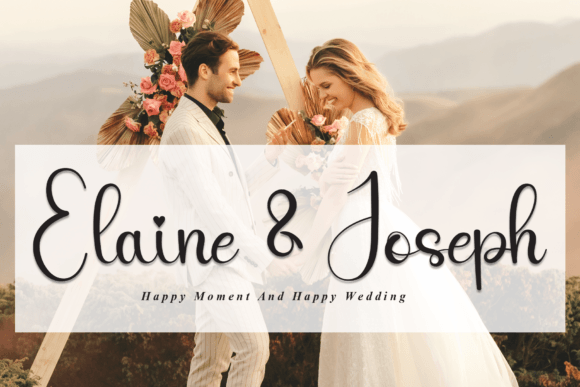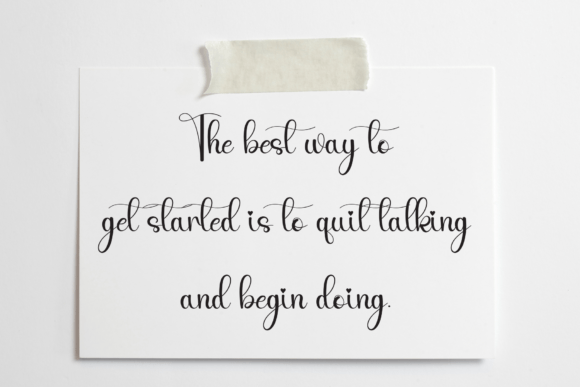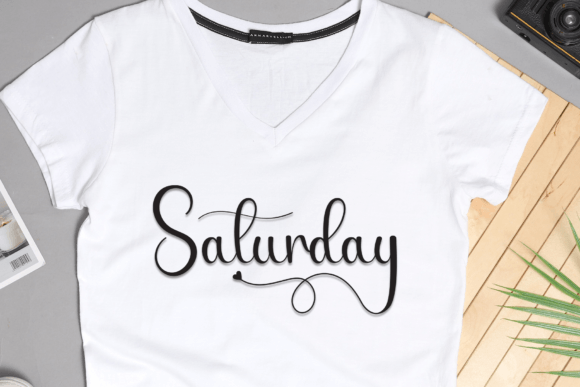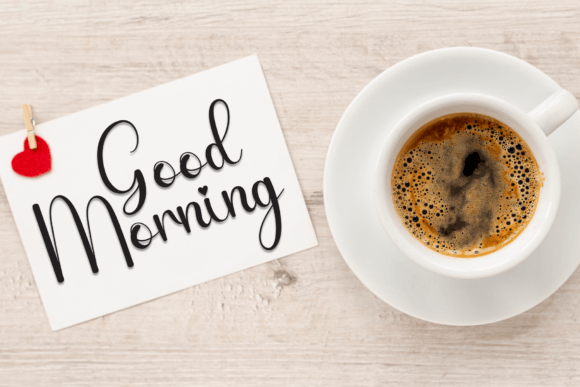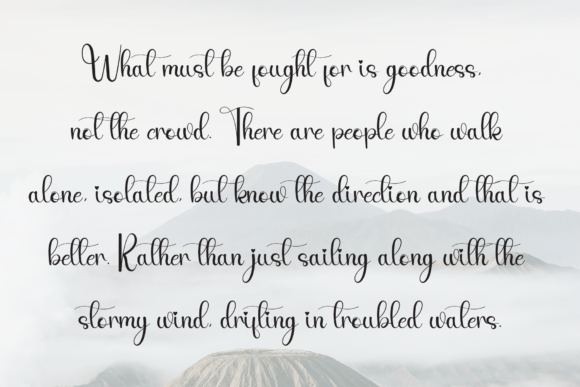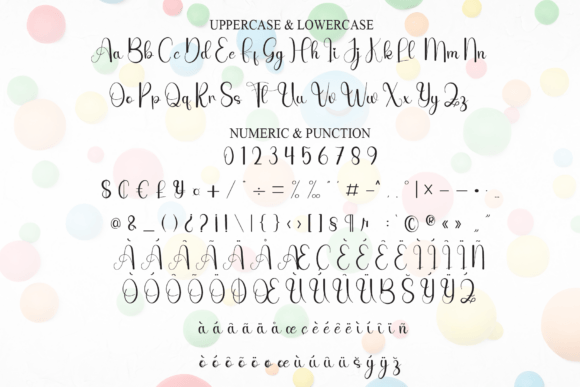
Bubblegum Font: Elevate Your Designs with Elegance and Charm
In the world of typography, fonts play a crucial role in conveying the tone and personality of a design. Among the numerous font styles available, script fonts have gained immense popularity for their elegance and sophistication. One such font that has captured the hearts of designers and crafters alike is the Bubblegum Font. This stylish handwritten script font is renowned for its flowing, graceful curves that exude elegance and charm, making it perfect for a variety of design applications.
What is Bubblegum Font?
Bubblegum Font is a beautiful, handwritten script font that boasts a unique and captivating style. Its delicate strokes and flowing curves bring a sense of warmth and creativity to any design, making it an excellent choice for designers and crafters looking to add a personal touch to their projects. The font’s elegant and sophisticated appearance makes it suitable for a wide range of applications, including invitations, logos, branding, and more.
Key Features of Bubblegum Font
The Bubblegum Font has several key features that make it a standout choice for designers and crafters:
- Elegant and Sophisticated: The font’s flowing curves and delicate strokes give it a sophisticated and elegant appearance, perfect for designs that require a touch of luxury.
- Handwritten Style: The font’s handwritten style adds a personal touch to any design, making it ideal for invitations, letters, and other applications where a personal touch is desired.
- Versatile: Bubblegum Font is versatile and can be used for a wide range of design applications, including logos, branding, packaging, and more.
- Easy to Read: Despite its elegant and cursive style, Bubblegum Font is easy to read, making it suitable for body text and headings.
Uses of Bubblegum Font
Bubblegum Font is an incredibly versatile font that can be used for a variety of design applications, including:
- Invitations: The font’s elegant and sophisticated style makes it perfect for wedding invitations, birthday invitations, and other formal events.
- Logos and Branding: Bubblegum Font can be used to create stunning logos and branding materials that exude elegance and sophistication.
- Packaging: The font’s unique style makes it suitable for packaging designs, adding a touch of elegance and charm to product packaging.
- Stationery: Bubblegum Font can be used to create beautiful stationery, including letterheads, notebooks, and journals.
Tips for Using Bubblegum Font
To get the most out of Bubblegum Font, here are some tips to keep in mind:
- Use it Sparingly: While Bubblegum Font is elegant and sophisticated, it can be overwhelming if used excessively. Use it sparingly to add a touch of elegance to your design.
- Pair it with Other Fonts: Bubblegum Font can be paired with other fonts to create a stunning contrast. Try pairing it with a sans-serif font for a modern look.
- Experiment with Colors: The font’s elegant style looks great with a variety of colors. Experiment with different colors to find the perfect combination for your design.
In conclusion, Bubblegum Font is a stylish and elegant handwritten script font that can elevate any design with its flowing, graceful curves. Its versatility, elegance, and sophistication make it perfect for a wide range of design applications, including invitations, logos, branding, and more. With its delicate strokes and warm appearance, Bubblegum Font is sure to add a personal and sophisticated touch to any design.